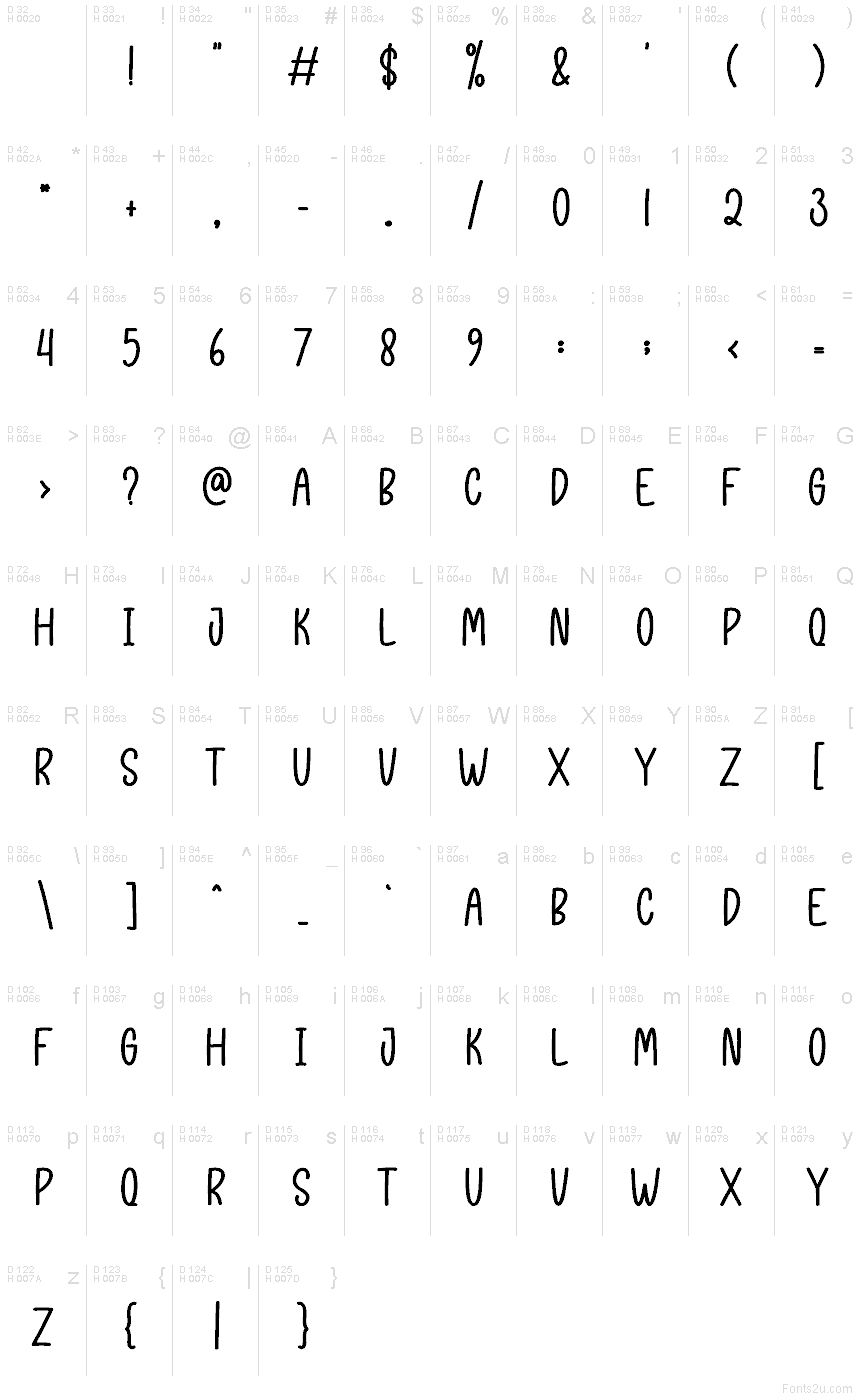
Lakeview
Lakeview font by Andi Moz is a hand-drawn, vintage-inspired, free handwritten font. Featuring the style’s casual elegance, this font has an approachable warmth with informal charm. It also features condensed width and thin weight in its line strokes which makes its overall shape slightly minimal.
Use it for vintage-style posters and dash cards, classic apparel items such as shirts or tote bags. Lakeview is incredible for business logos or brand names, packages and labels of organic products. Enjoy incorporating this free script font into your menus, leaflets and other types of designs!